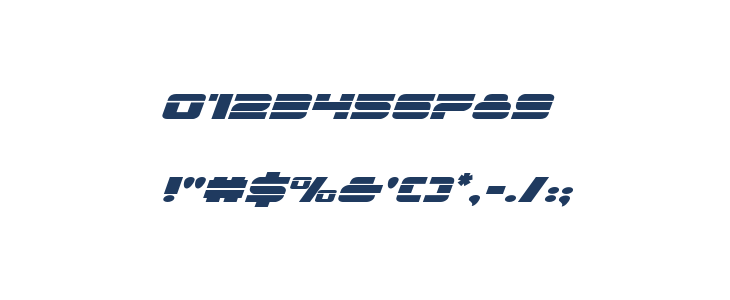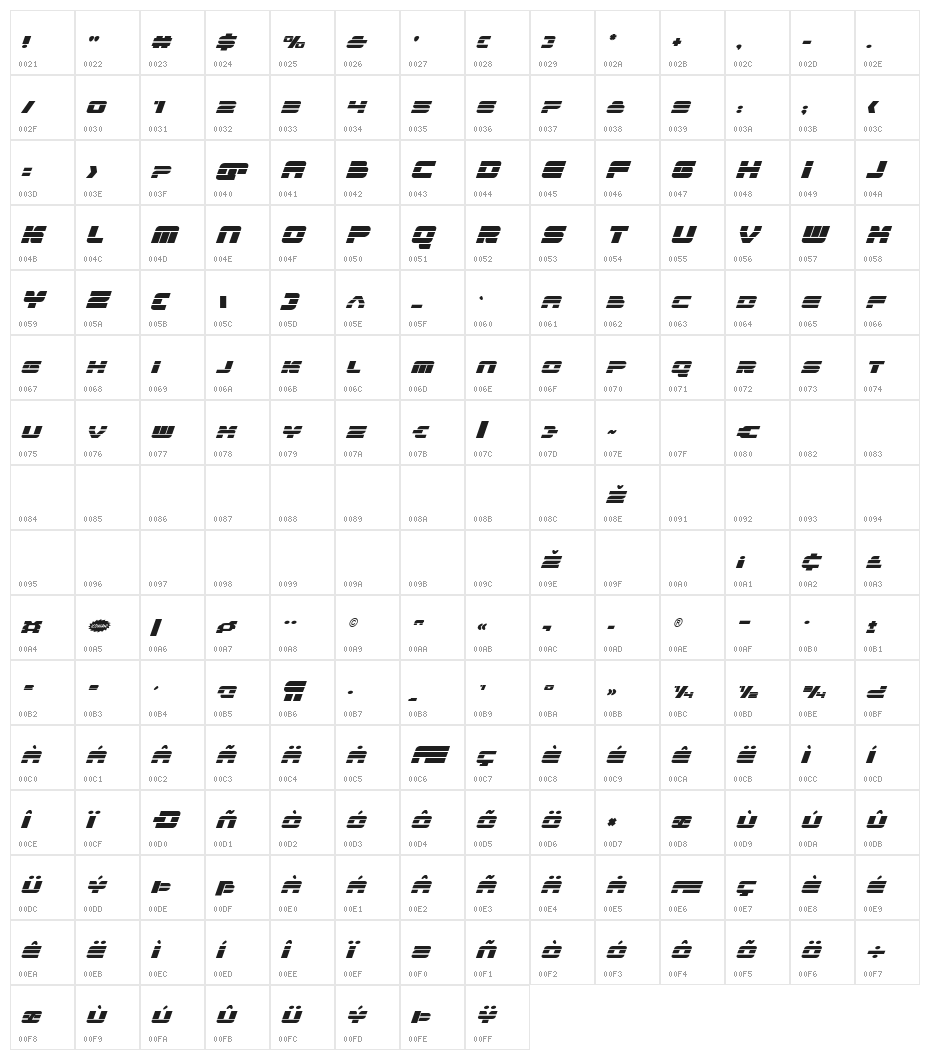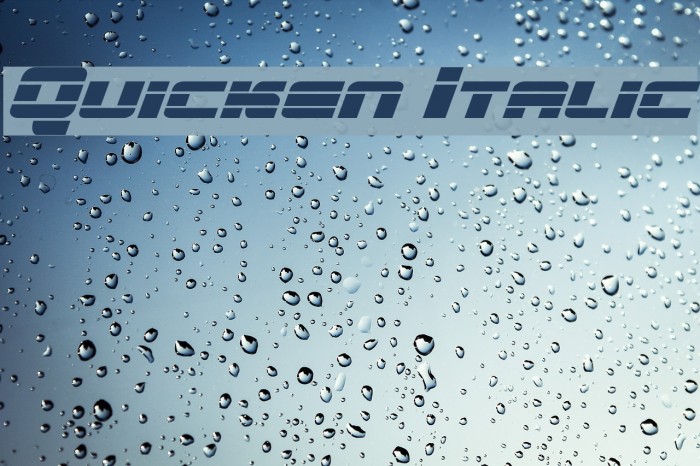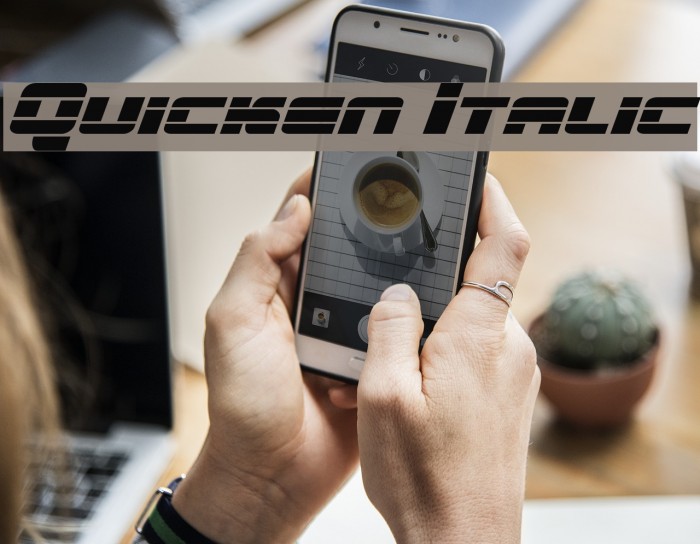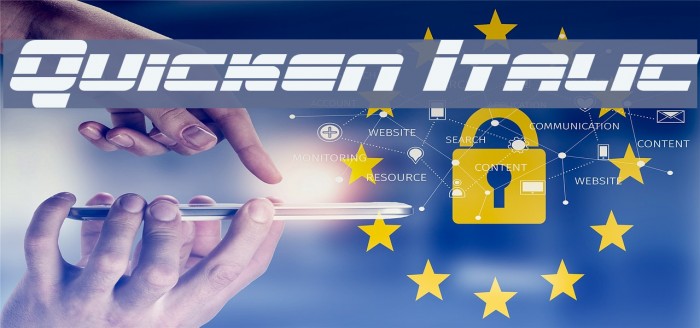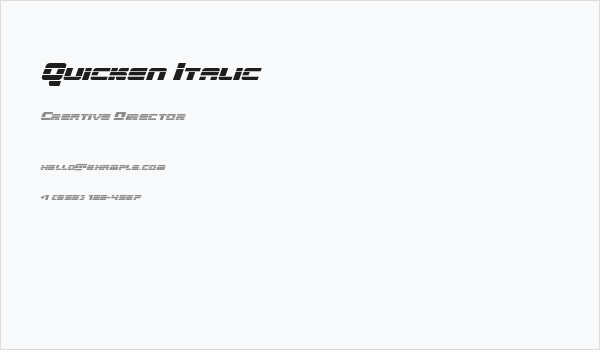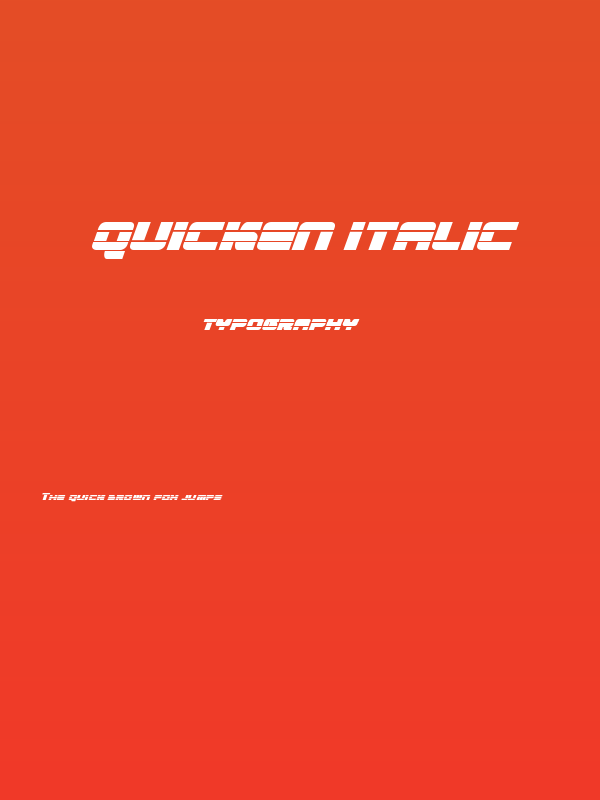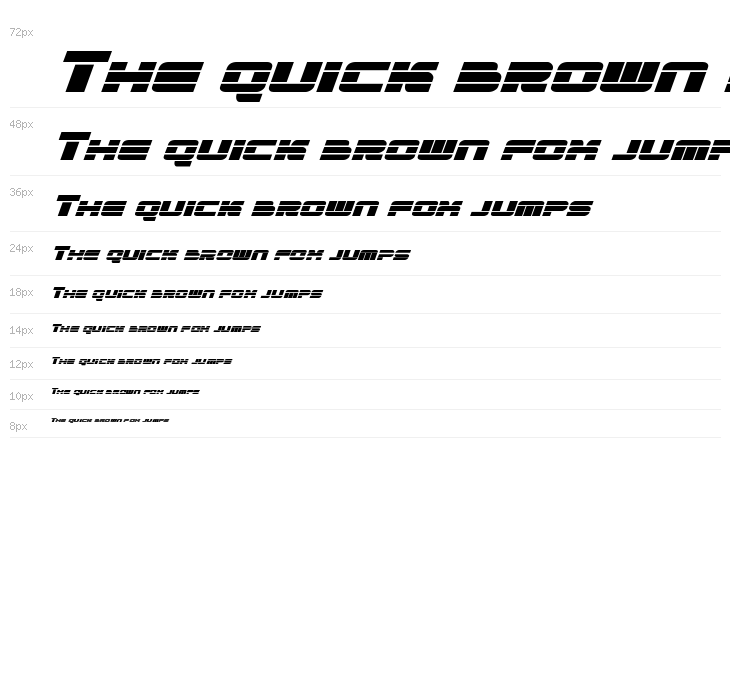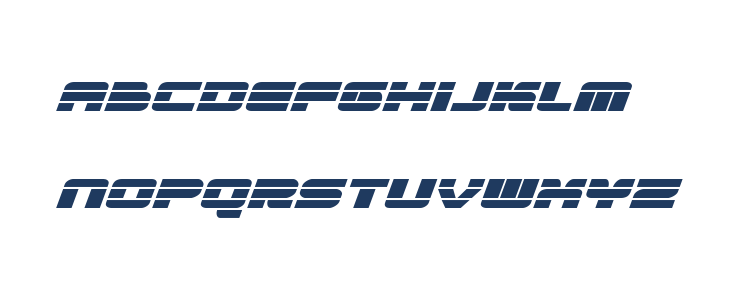
Quicken Italic Font
Quicken Italic Description
This font features a bold, italicized style with a futuristic and dynamic appearance. The characters are constructed with a series of horizontal lines that create a segmented look, giving it a sense of motion and speed. The uppercase and lowercase letters maintain a consistent design, with sharp angles and a sleek, modern aesthetic. The numbers and special characters follow the same segmented pattern, ensuring uniformity across the font. This design is ideal for projects that require a modern, tech-inspired look.
Use CaseLogos, Headlines
Proposed ProjectsIdeal for tech branding, sports team logos, video game titles, and futuristic-themed posters.